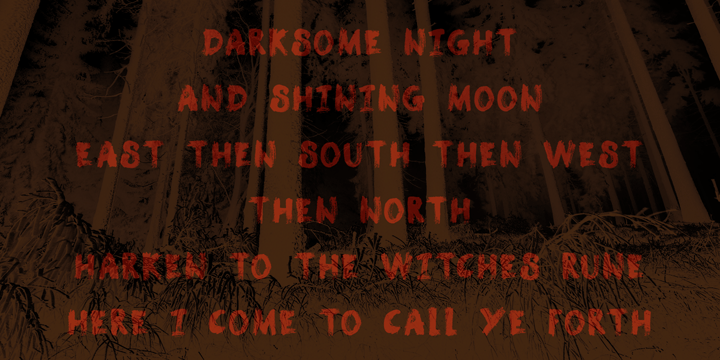
Samhain
Samhain is a Gaelic festival marking the end of the harvest season and the beginning of winter. There is no set date, but normally it is held around the end of October and beginning of November. Samhain font was made with a bamboo pen and Chinese ink on rough paper - hence the grungy look. It is quite a heavy font, so I wouldn't set a complete text in it, but it is ideal to create headlines, posters, postcards and invitations. Of course, Halloween comes to mind!
Samhain comes with extensive language support.